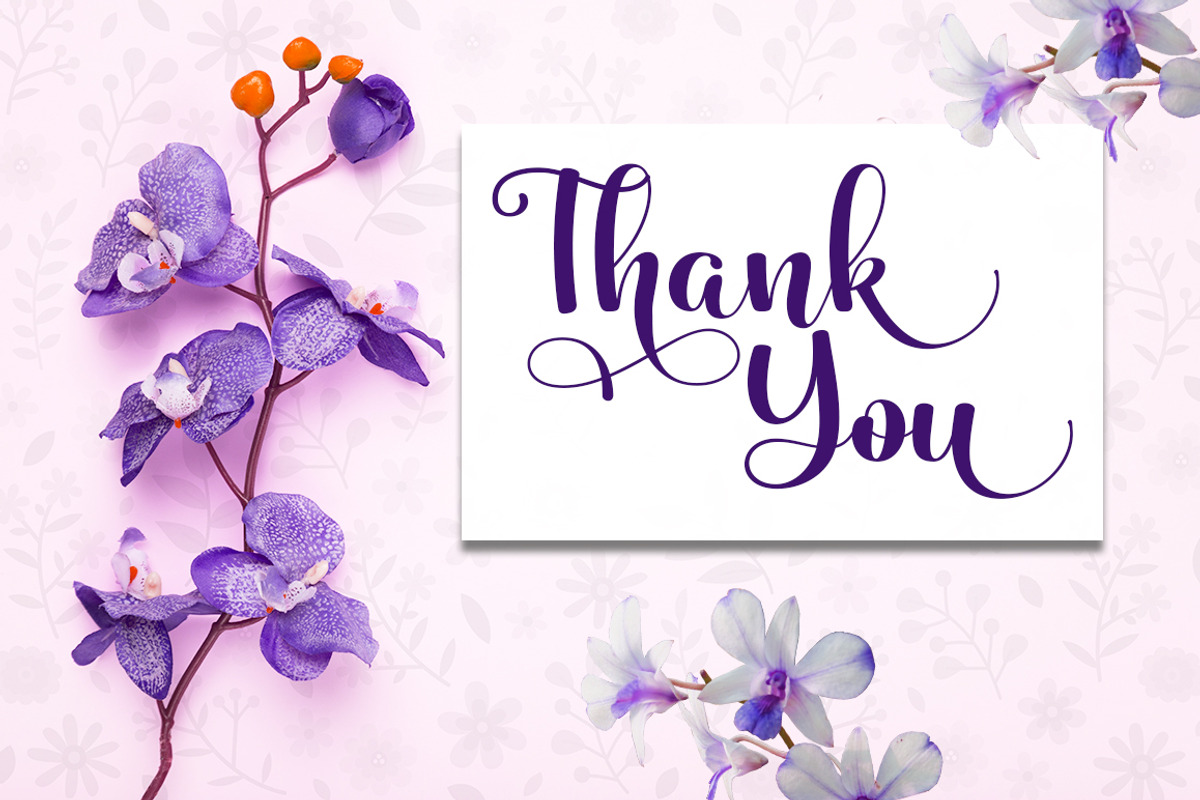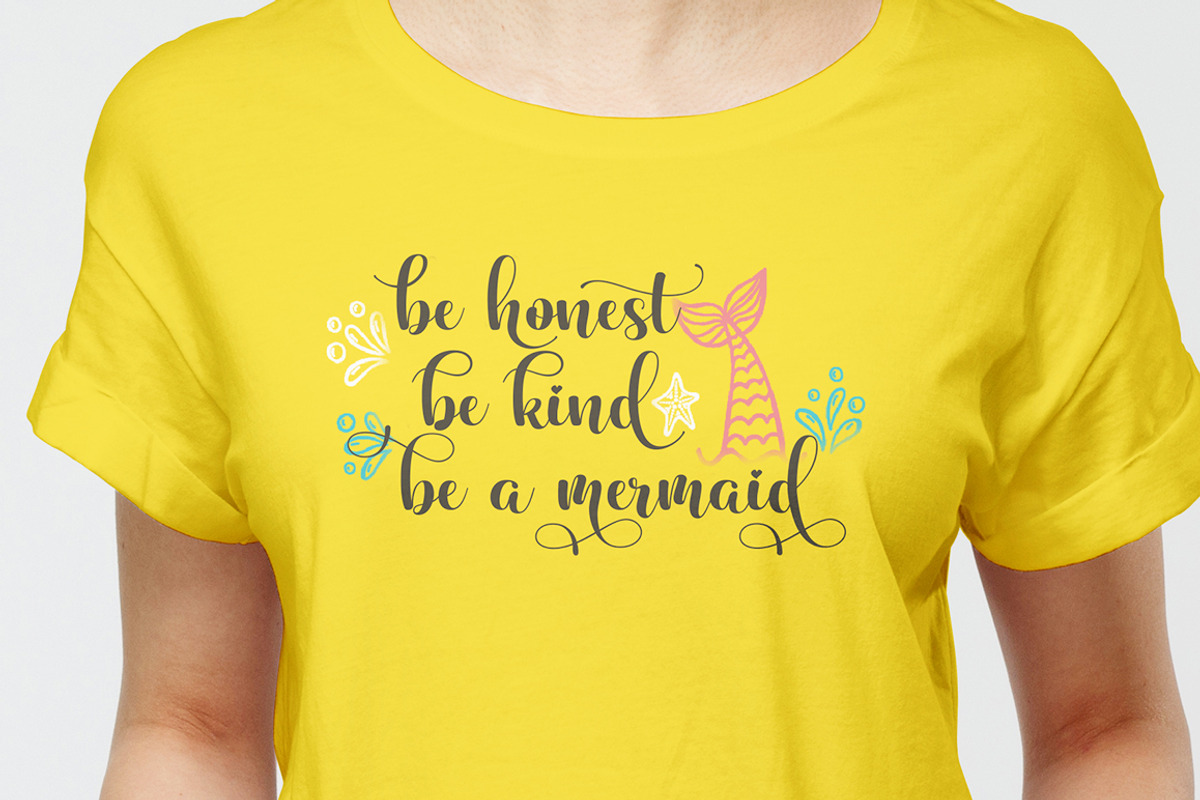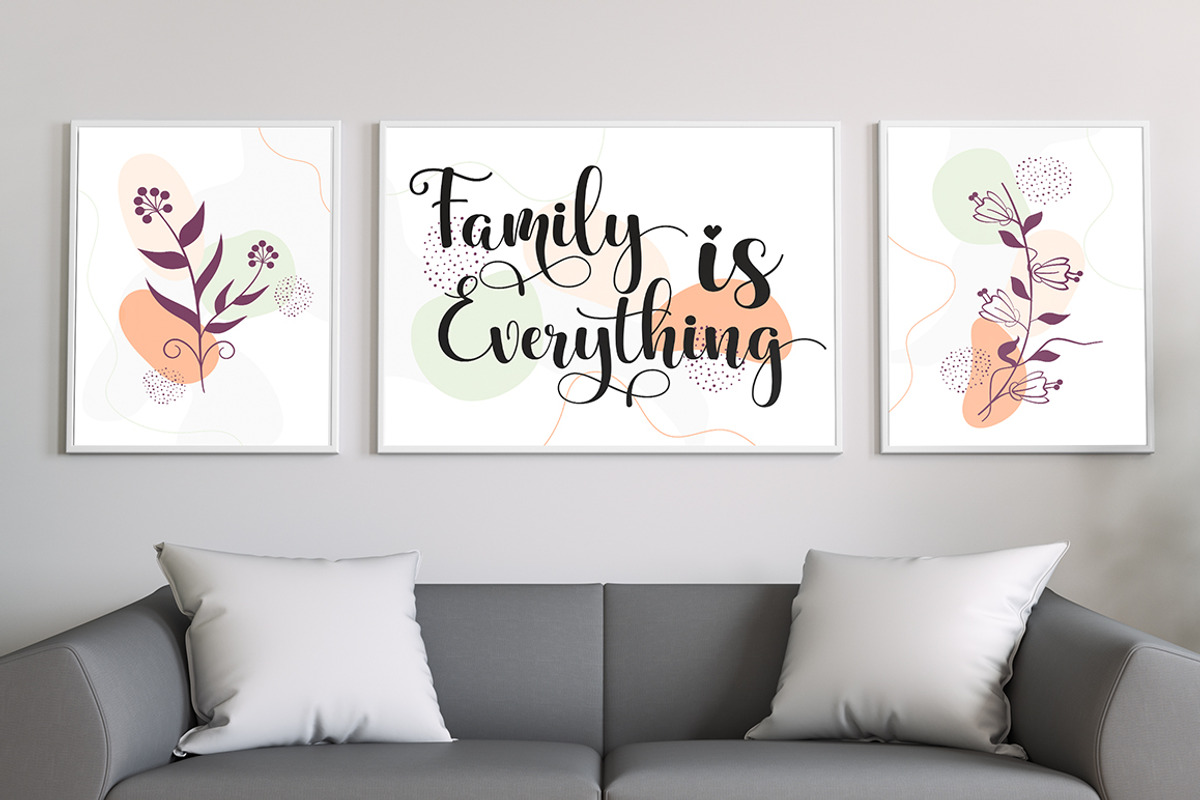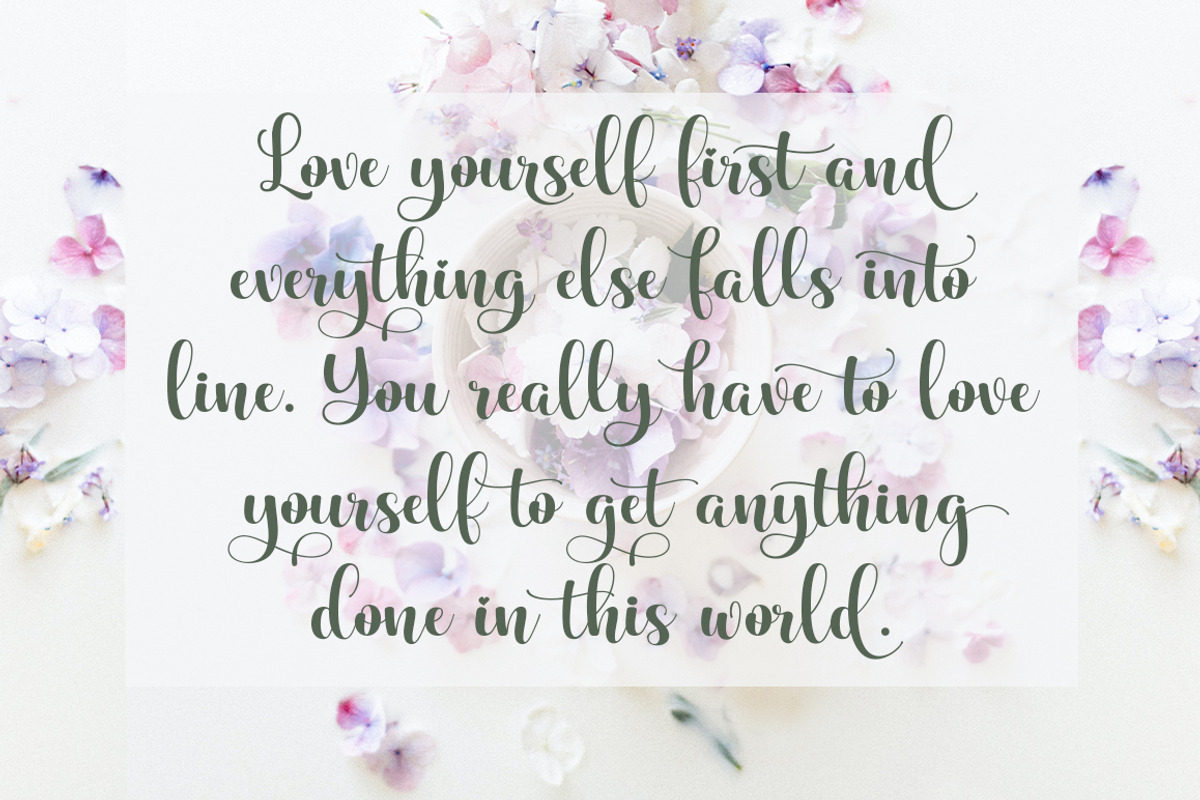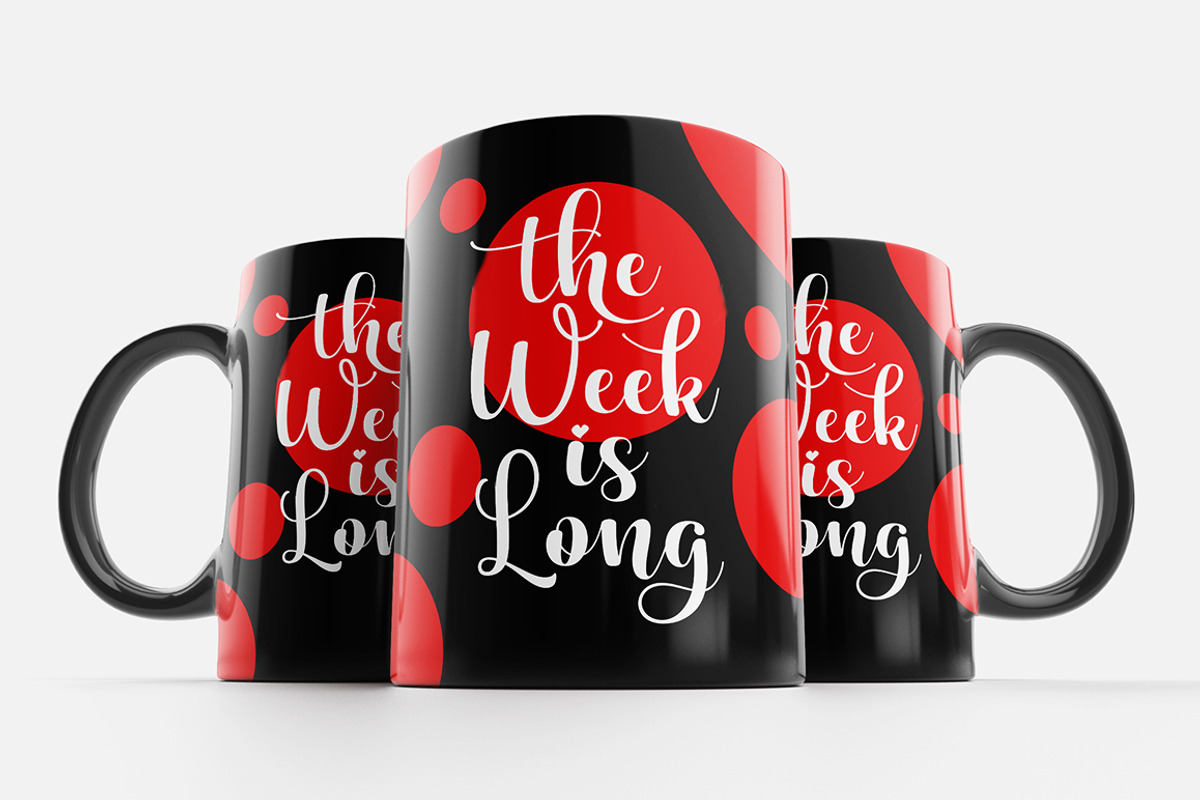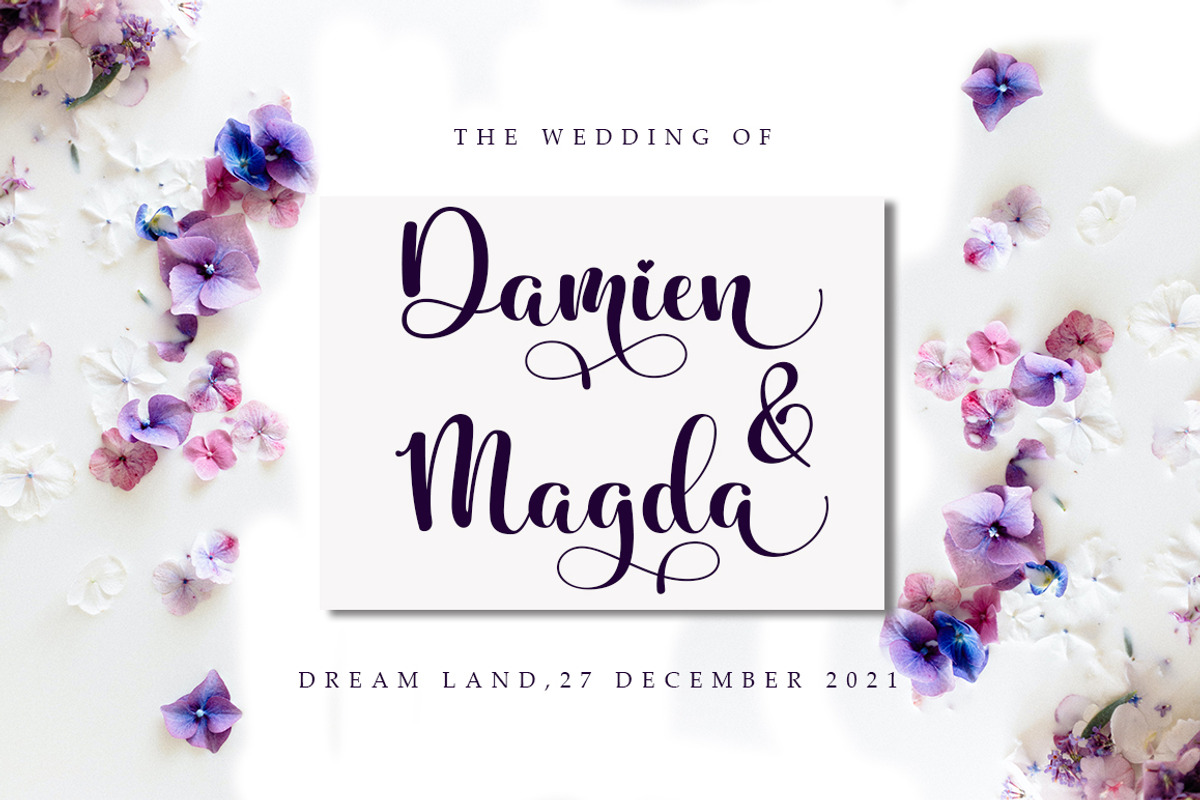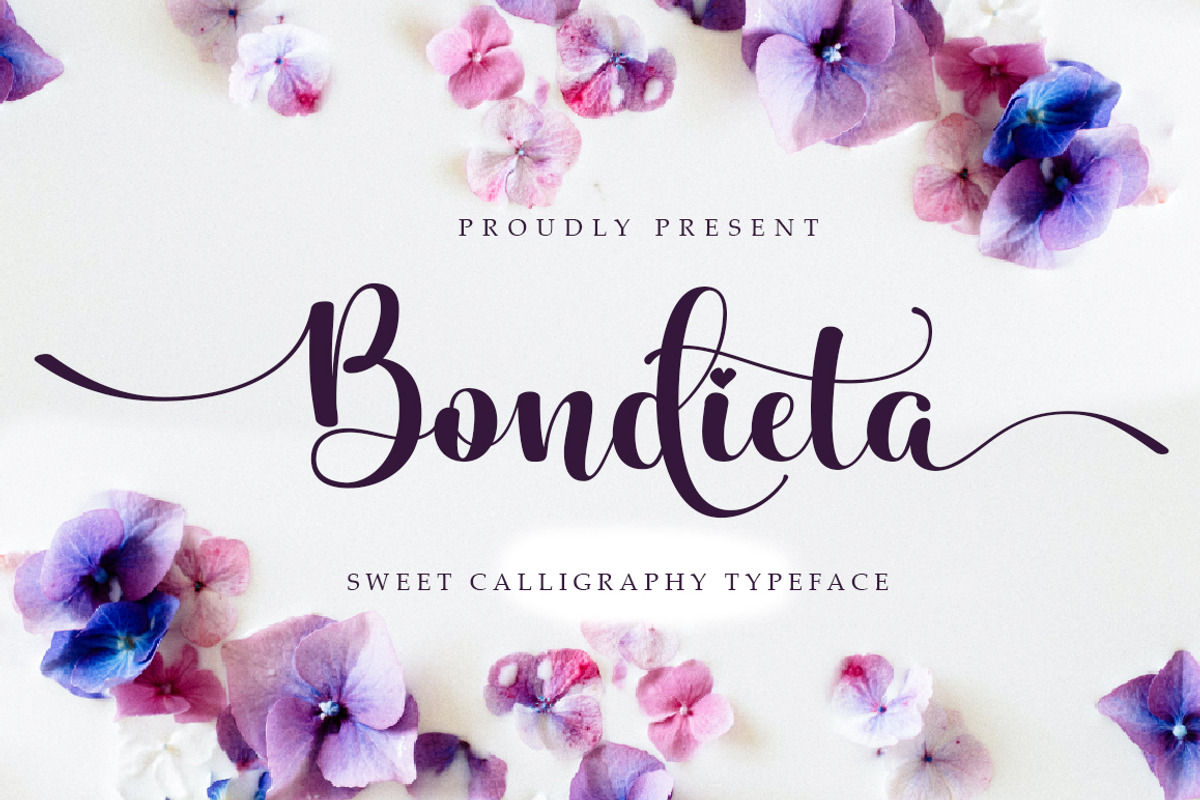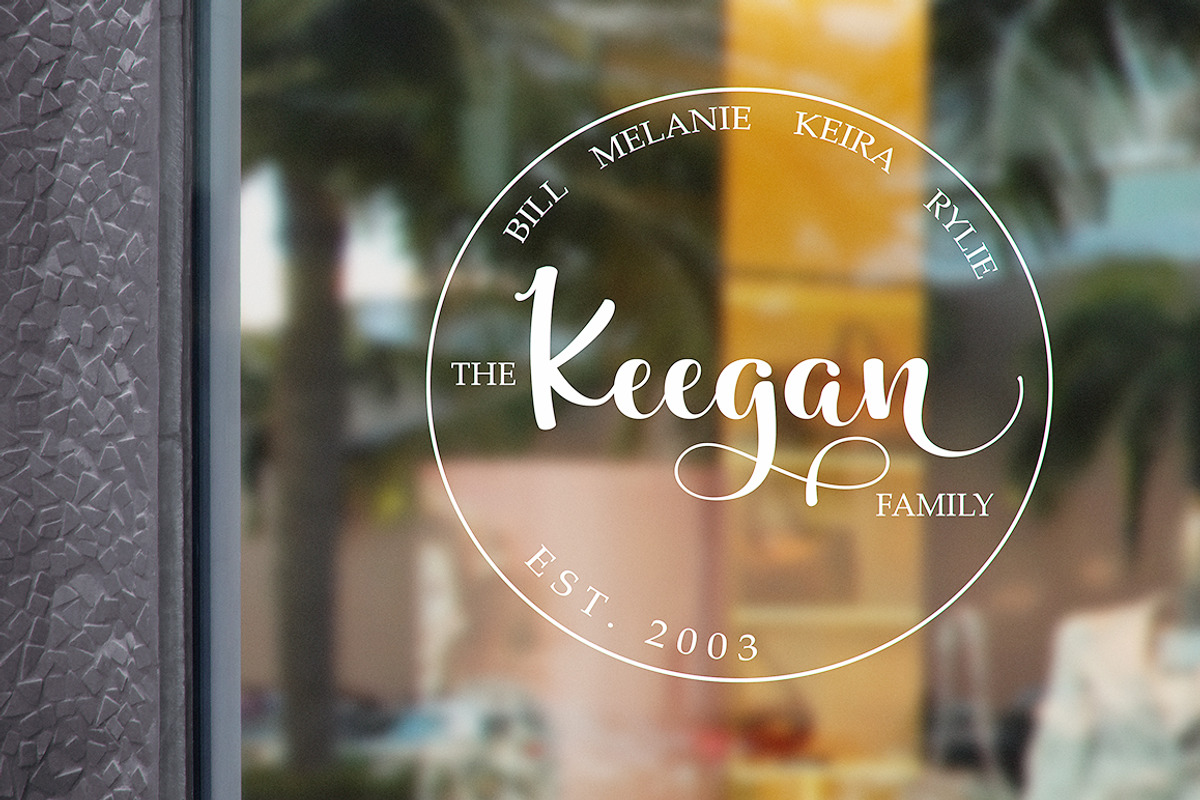
Bondieta script
Bondieta script is a magical script font carefully created with a touch of elegance. This is a beautiful combination of timeless elegance and authentic calligraphy. It features an incredibly classic style, while still keeping a friendly feel. Bondieta script is the perfect font for making original and outstanding designs.
This script supports multilingual and many alternative lowercase and uppercase characters, allowing you to make your design truly unique.
The Bondieta script is a beautiful, classic calligraphic font which will add a sweet, elegant, and perfect feel to your design. It’s perfect for logo projects, wedding invitation cards, branding, home designs, product packaging, and every other design that needs an elegant typeface.